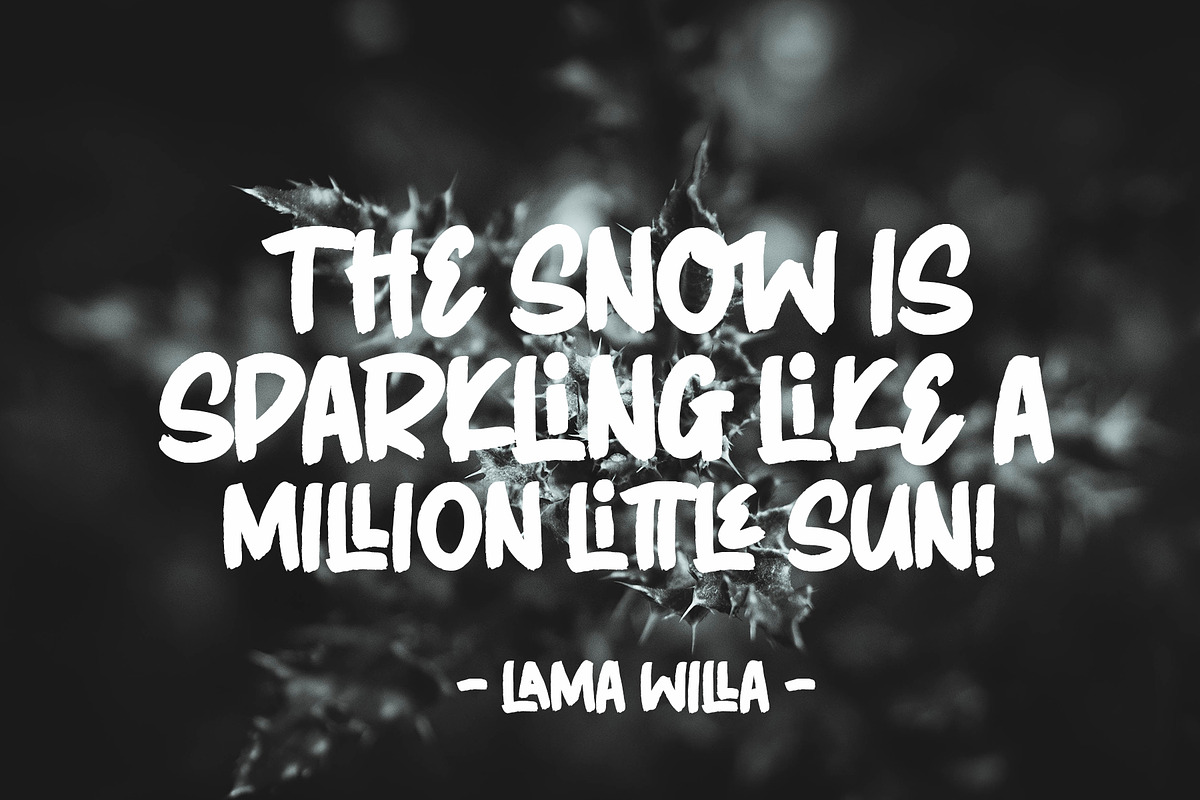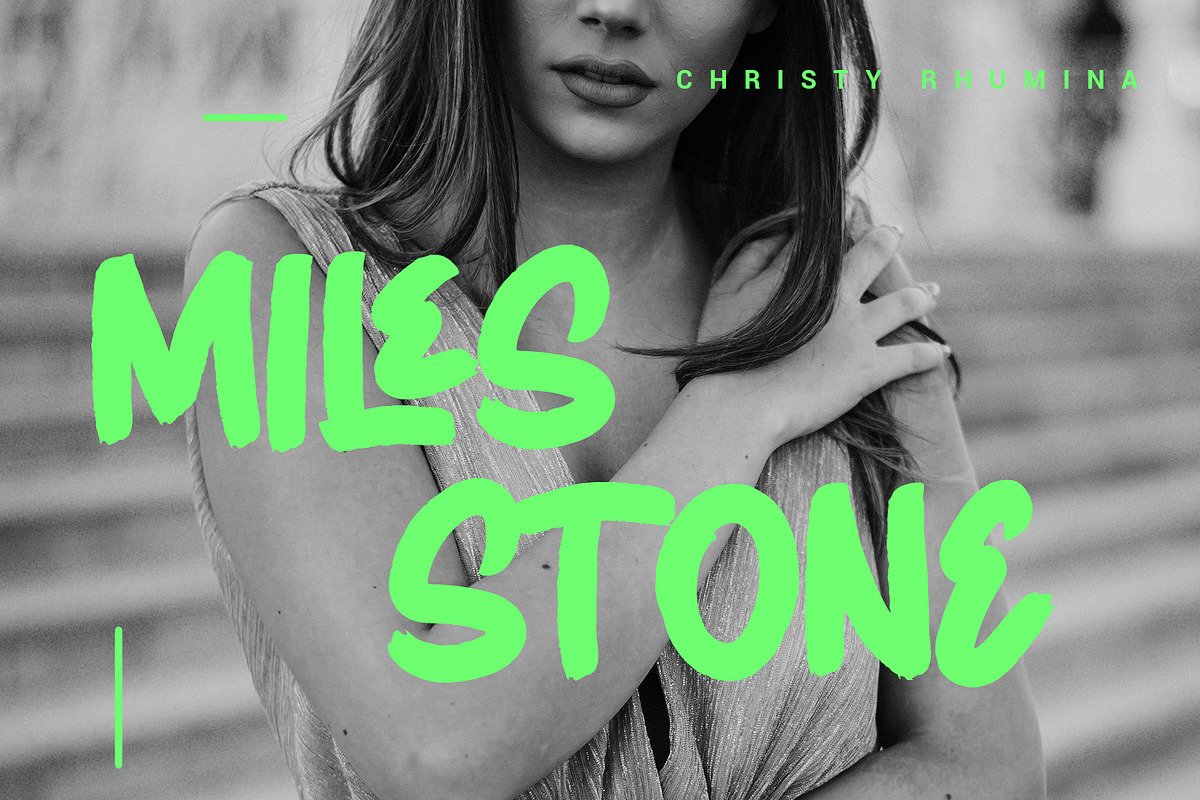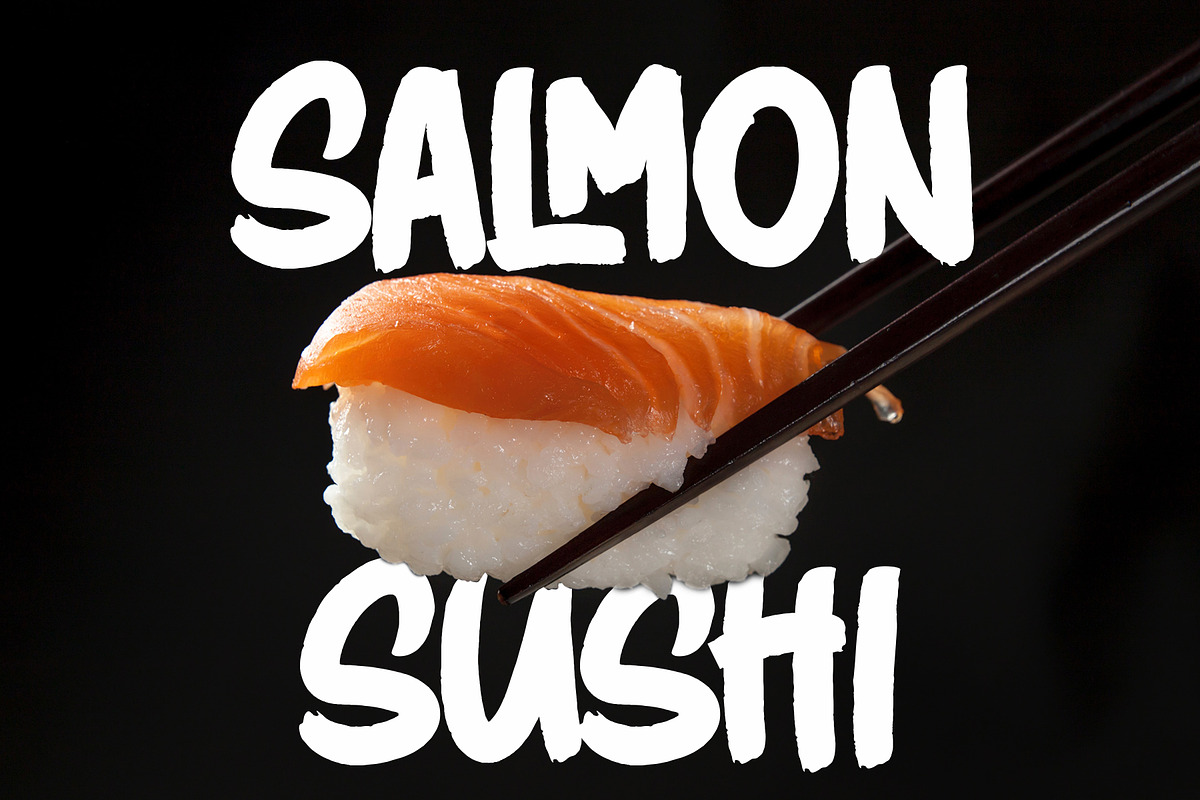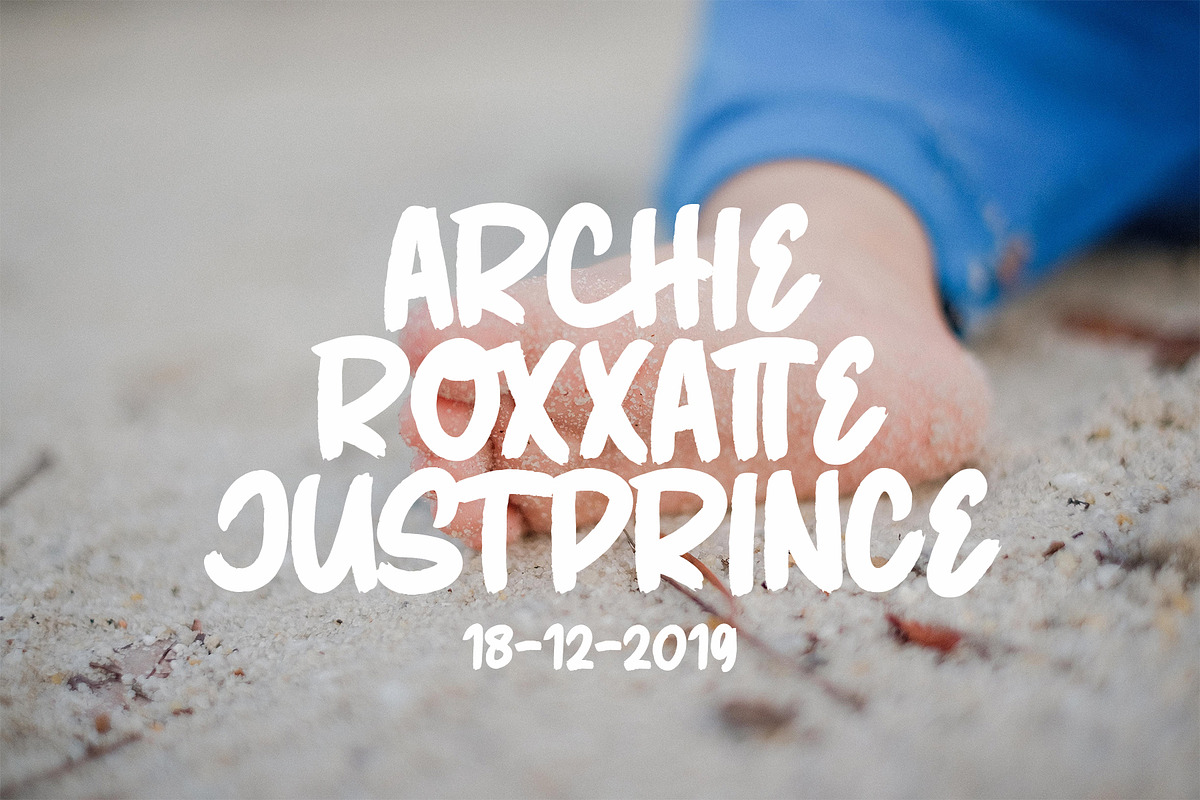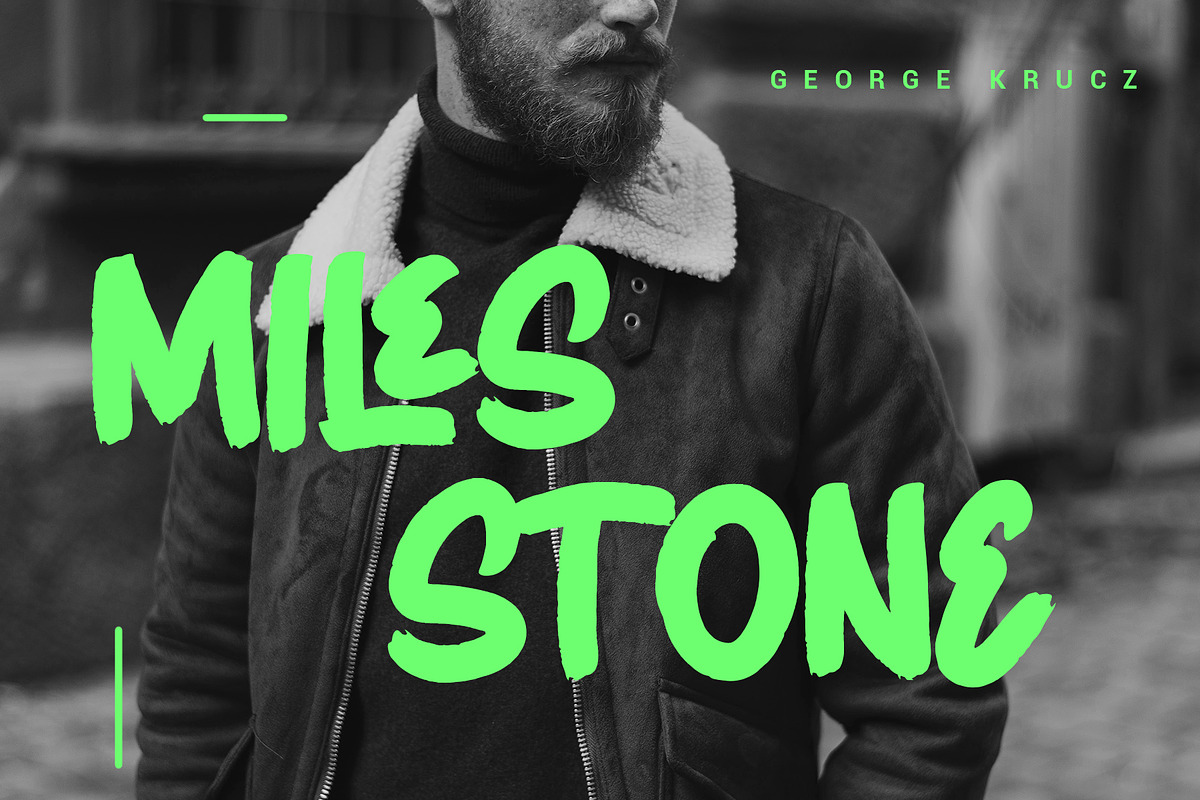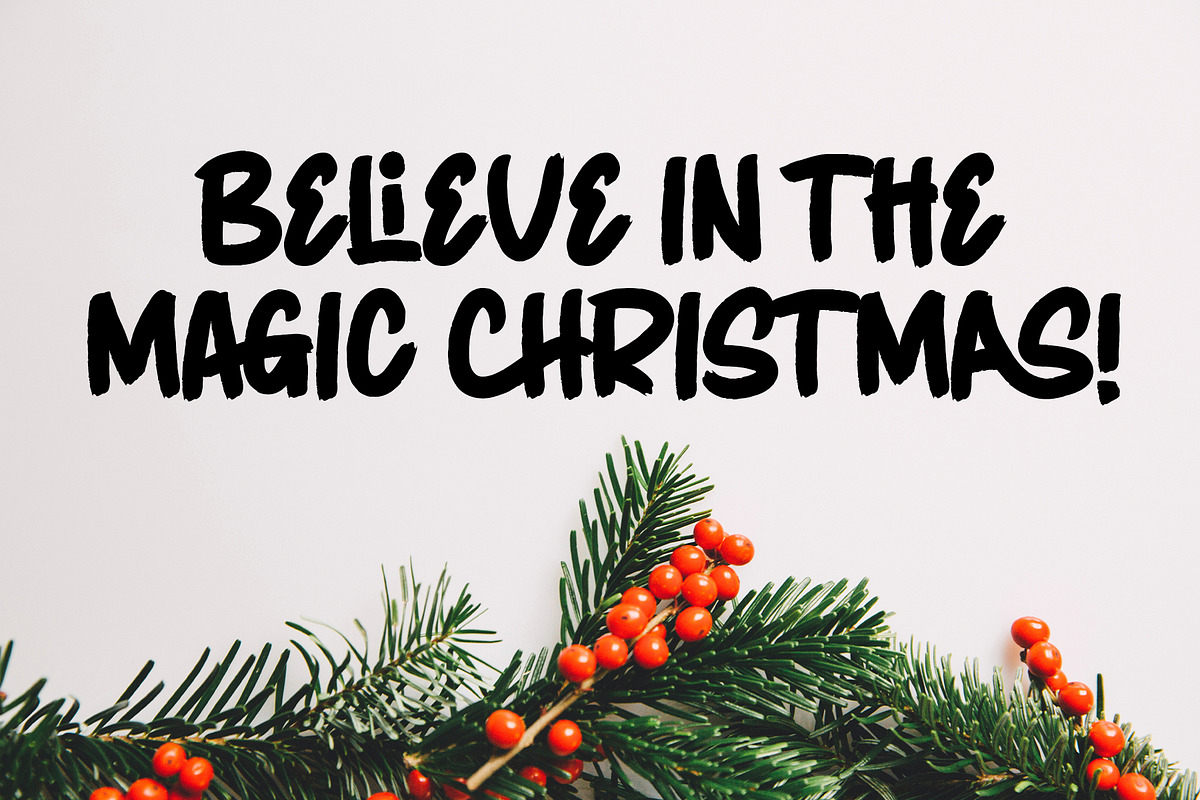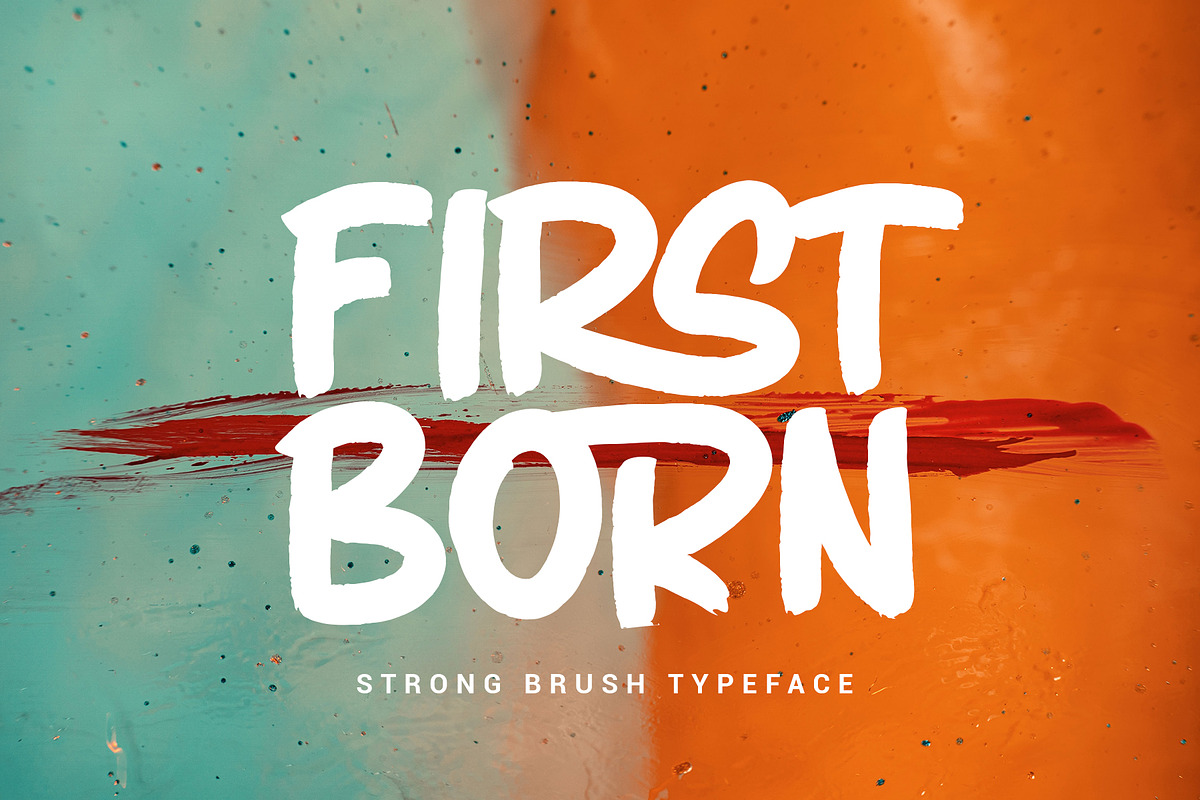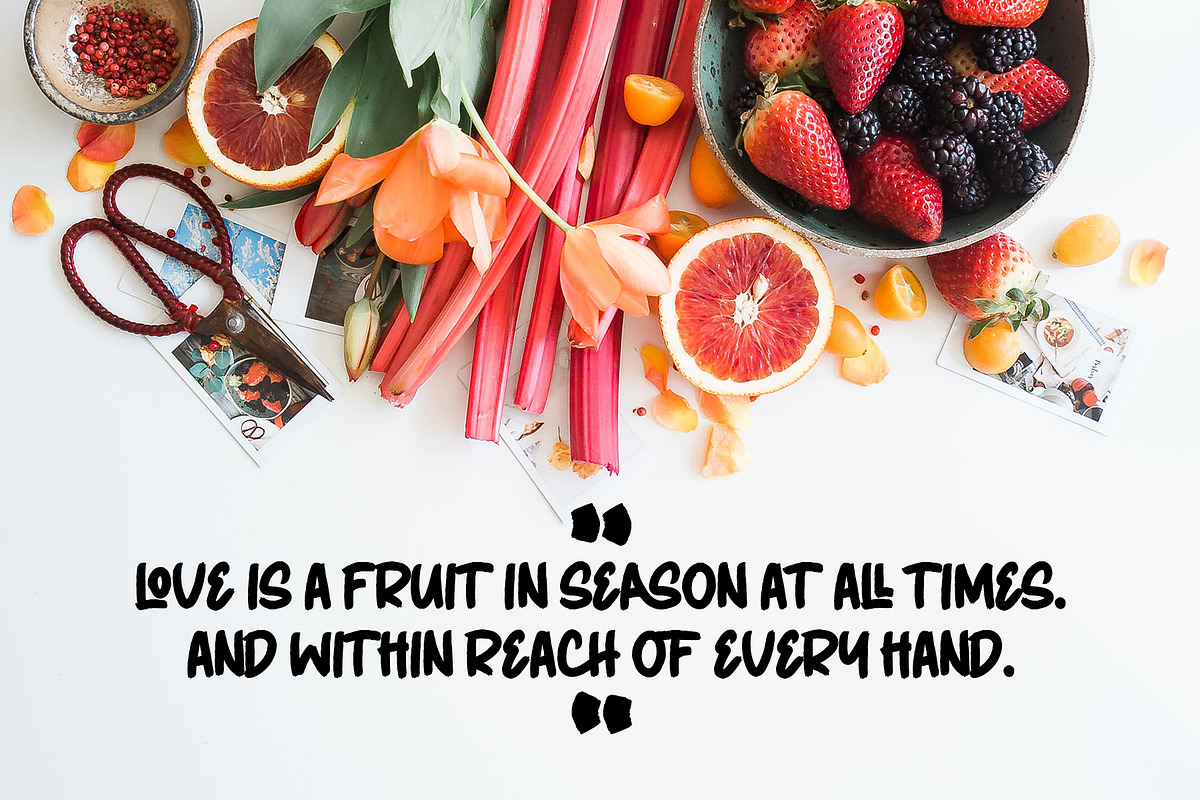
FIRSTBORN // BRUSH TYPEFACE
why i name in FIRSTBORN ? cause my little dude was born in 18 december. the font belong to my little dude. wohoooo..
IMPORTANT, THIS FONTS SHOULD TYPING WITH CAPITALS/UPPERCASE
FIRSTBORN PUNCTUATION.
FIRSTBORN MULTILINGUALS
FIRSTBORN STANDART LIGATURE
FIRSTBORN // BRUSH TYPEFACE by Crump Hand fits naturally into Branding, posters, packaging, typography.